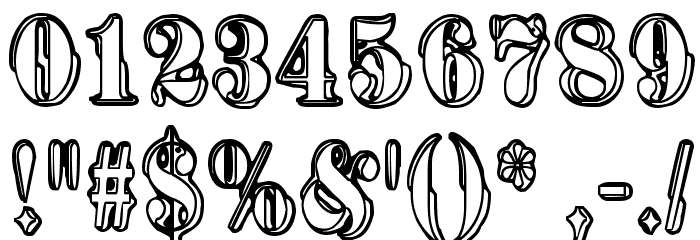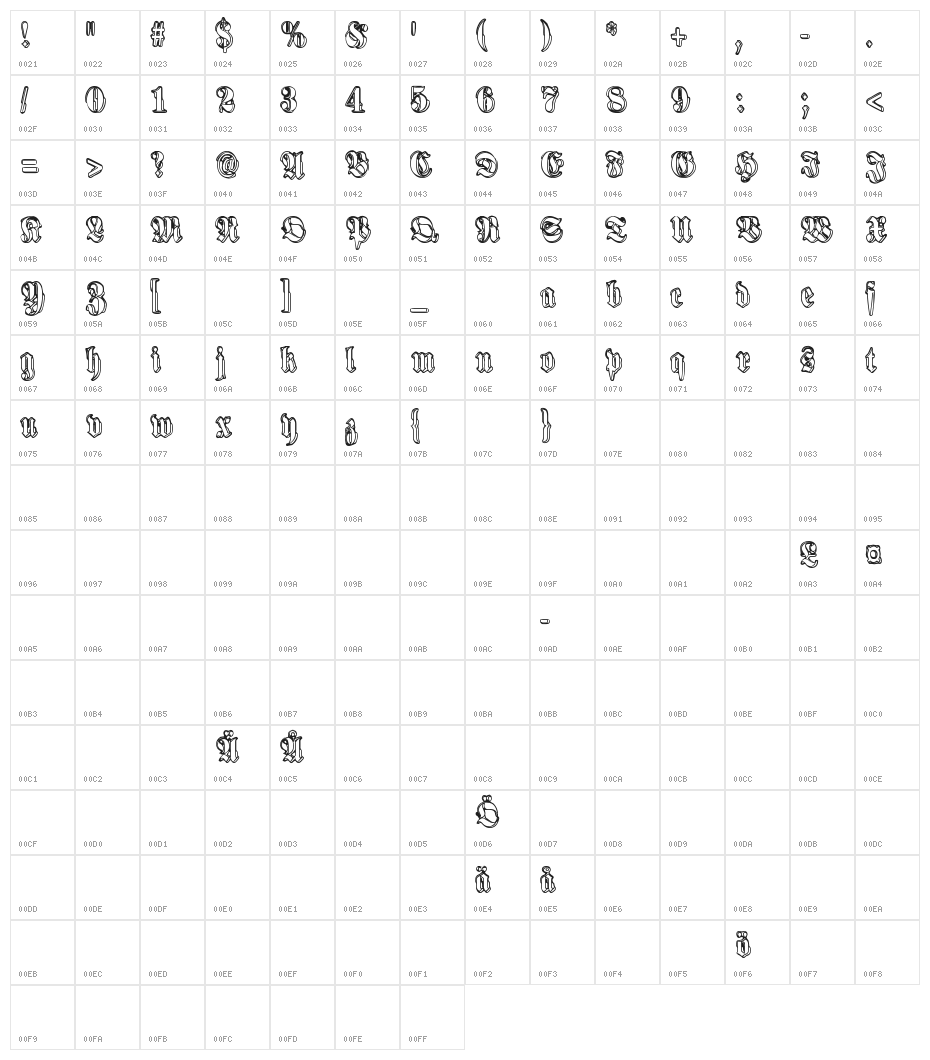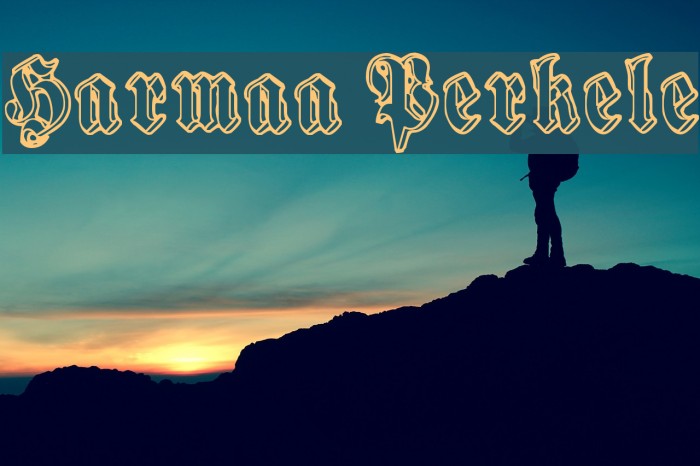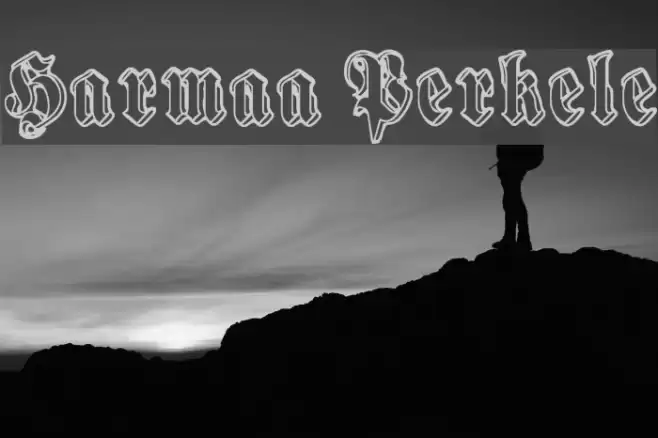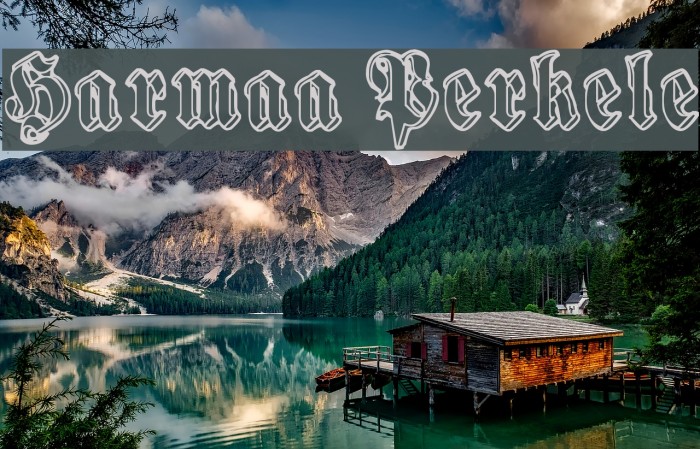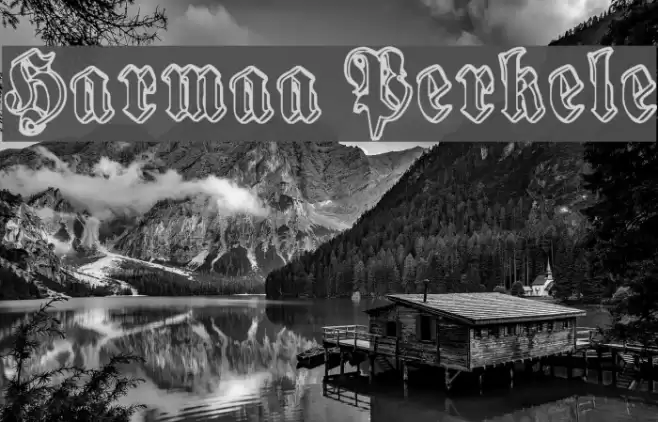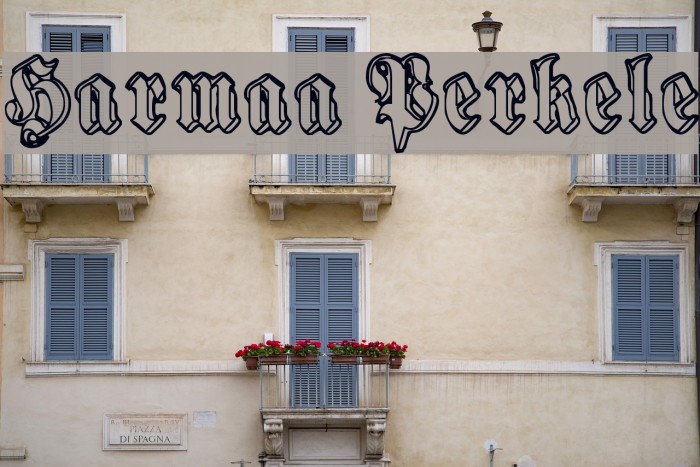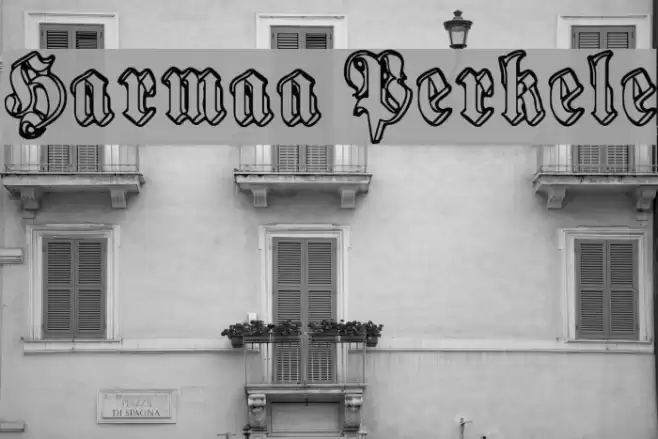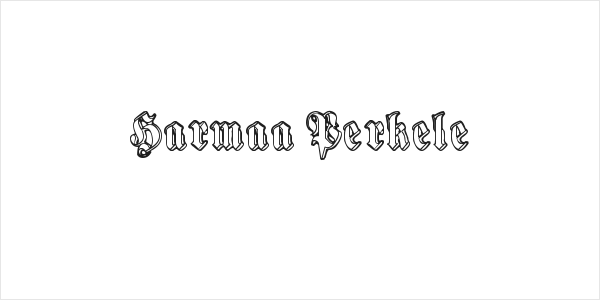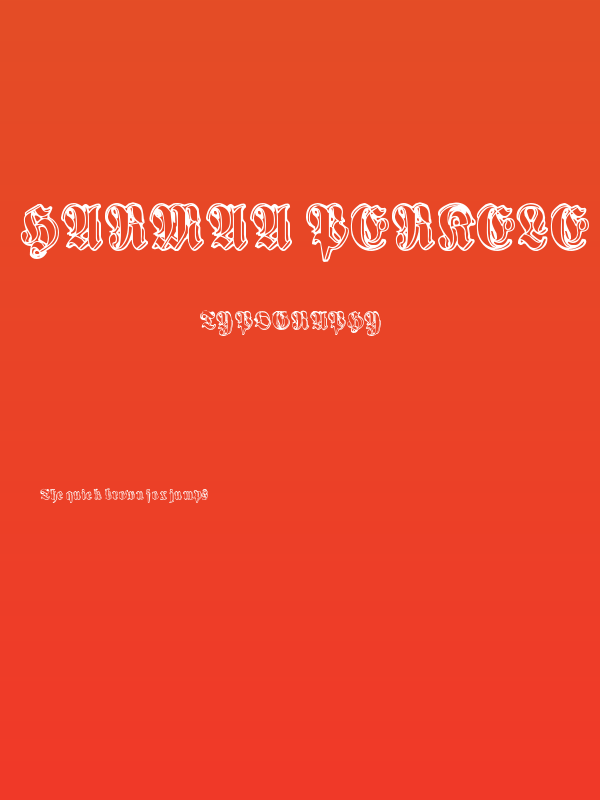
Harmaa Perkele Font
Harmaa Perkele Description
This font exhibits a classic blackletter style, characterized by its intricate and ornate design. The letters are bold and dramatic, with sharp angles and a distinct medieval flair. Each character is adorned with decorative elements, giving it a gothic and historical appearance. The uppercase and lowercase letters maintain a consistent style, with the uppercase being slightly more elaborate. Numbers and special characters follow the same ornate pattern, ensuring a cohesive look across all text. The font's unique style makes it stand out, capturing attention with its bold strokes and intricate details.
| Overall Style | Gothic, Medieval |
| Proposed Projects | Ideal for projects requiring a historical or gothic aesthetic, such as event posters, book covers, or themed branding. |